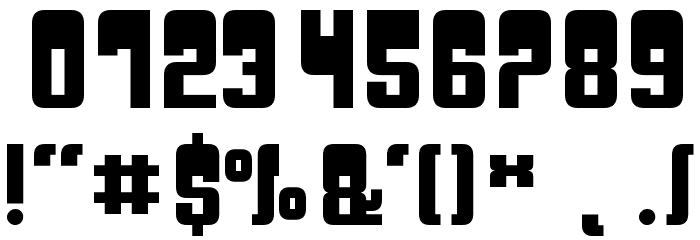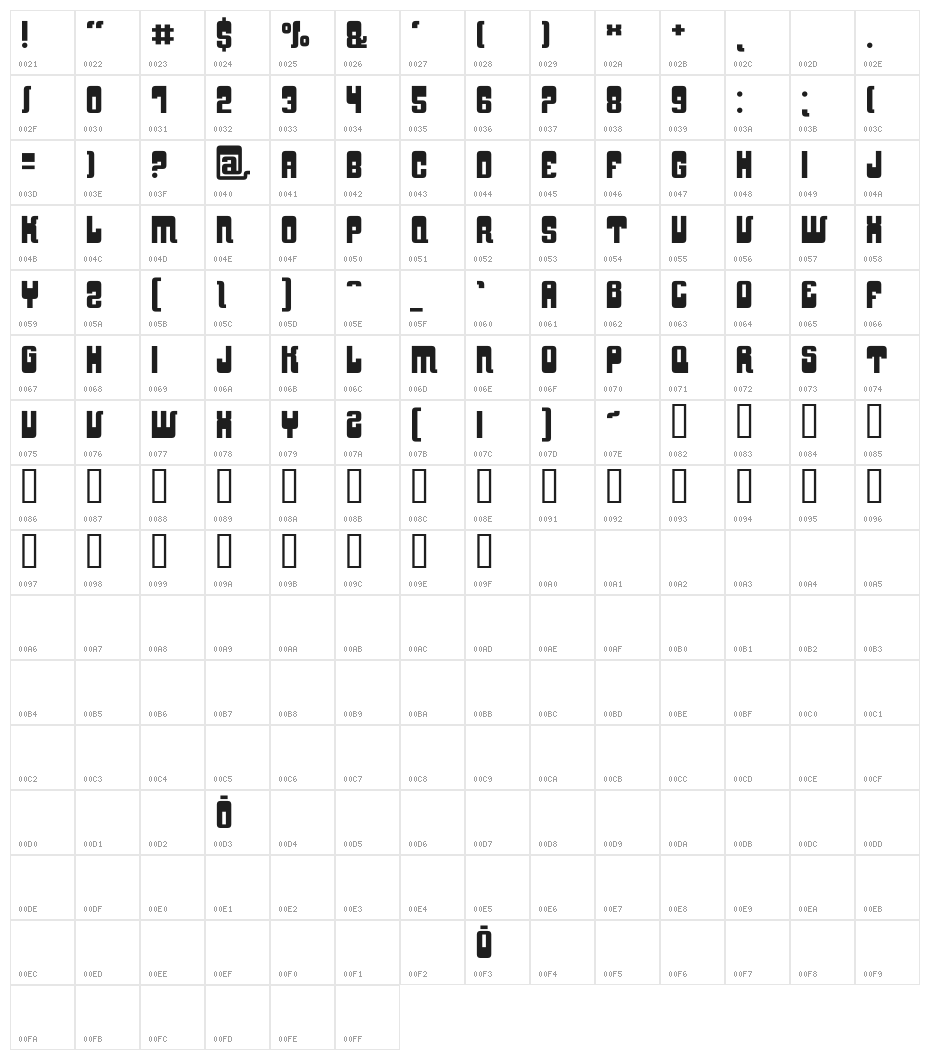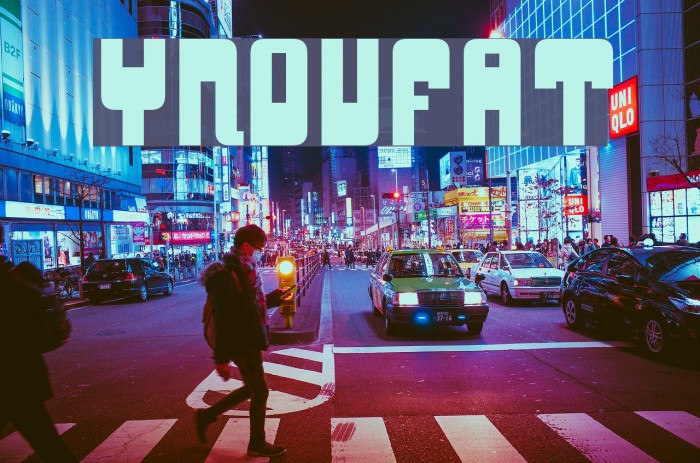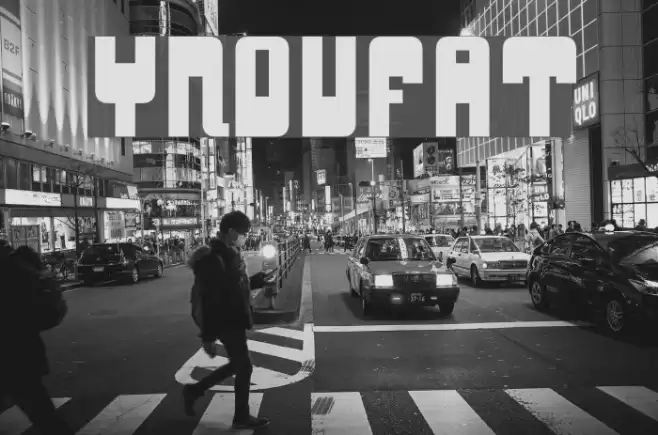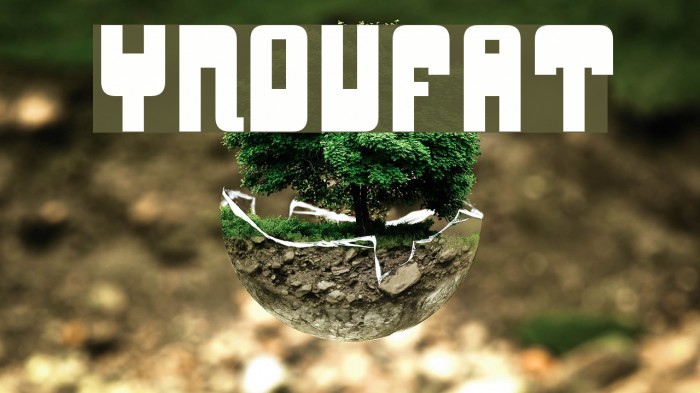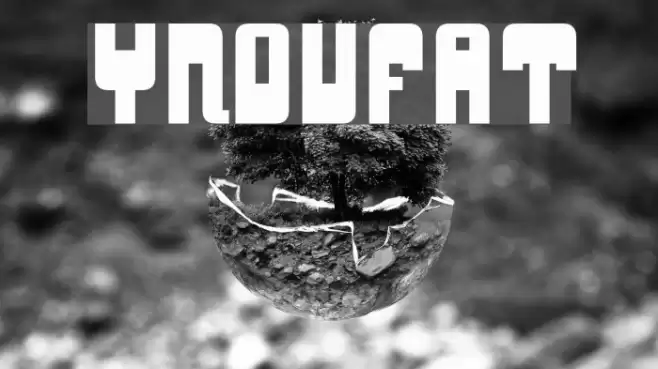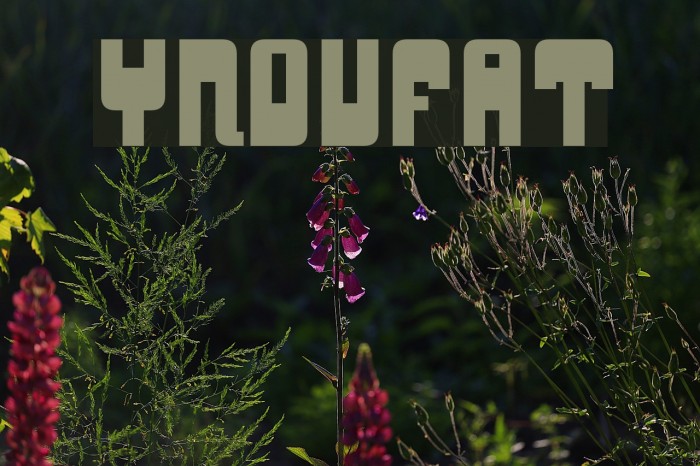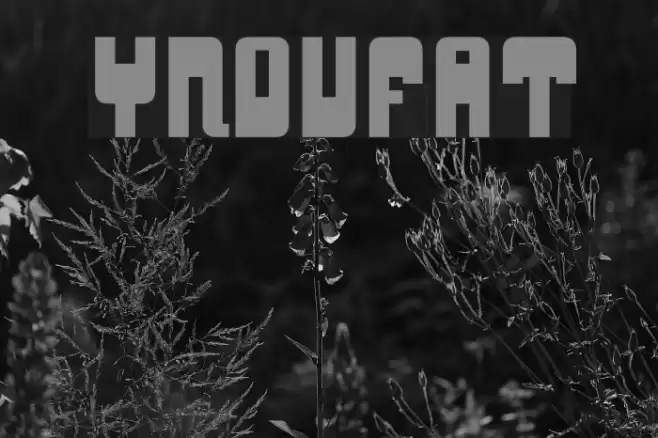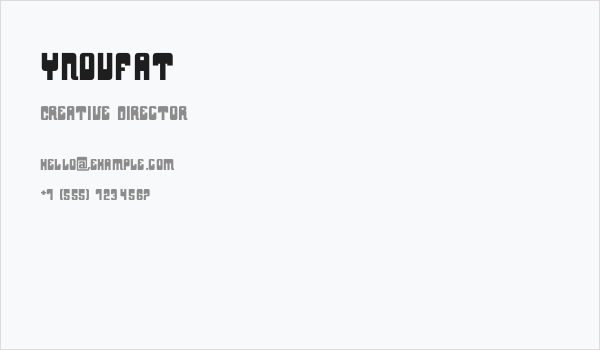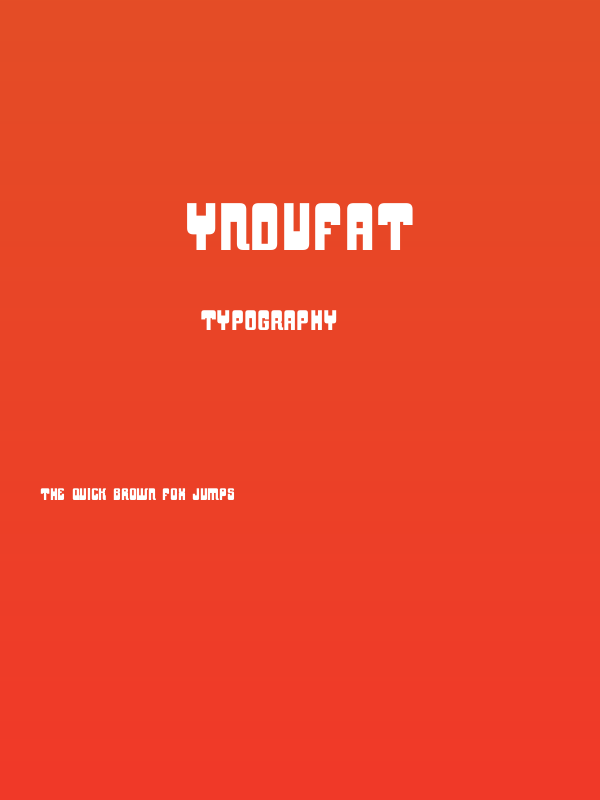
YnduFat Font
YnduFat Description
This font features a bold, geometric design with a strong presence. The characters are blocky and robust, with a uniform thickness that gives it a powerful and modern look. The uppercase letters are particularly striking, with a consistent height and width that create a cohesive appearance. The lowercase letters maintain the same boldness, ensuring readability while retaining the font's distinctive style. The numerals are equally bold, making them ideal for attention-grabbing displays. Special characters are designed with the same geometric precision, adding to the font's versatility.
| Proposed Projects | Ideal for posters, headlines, branding, and any project requiring a bold statement. |